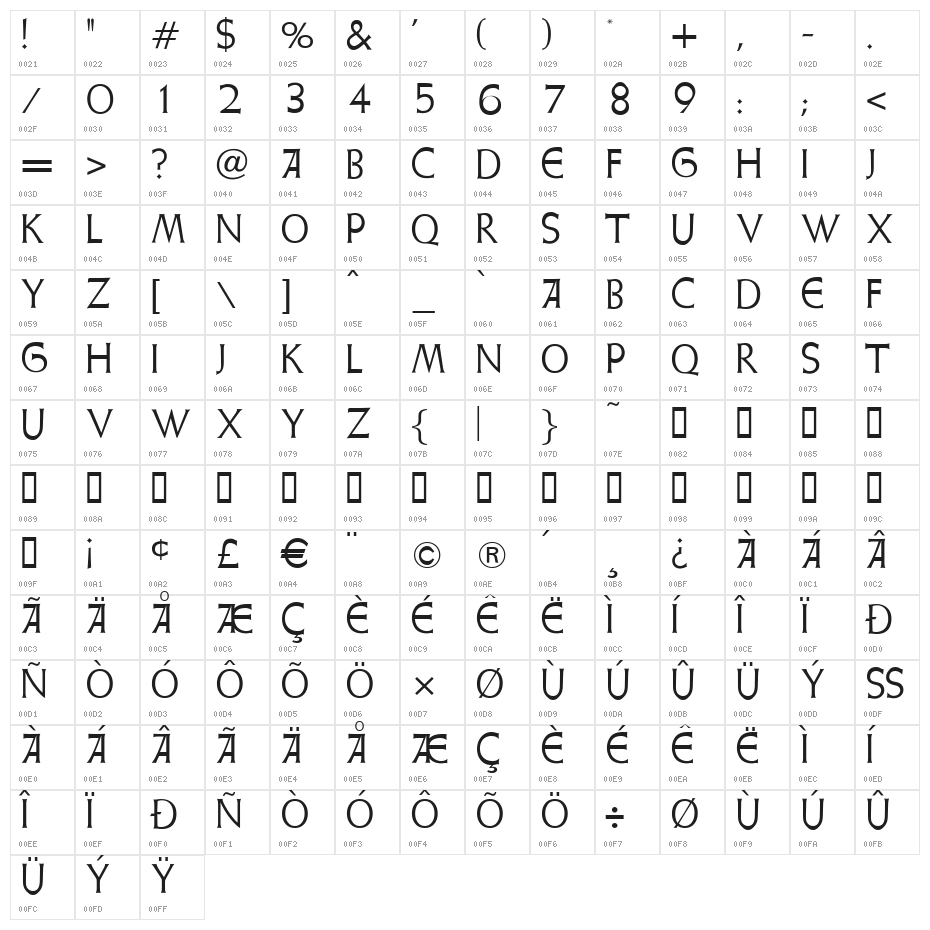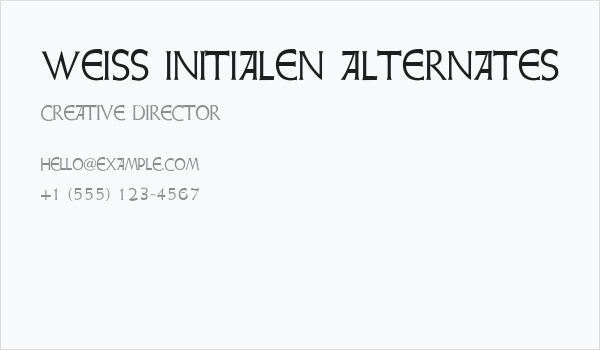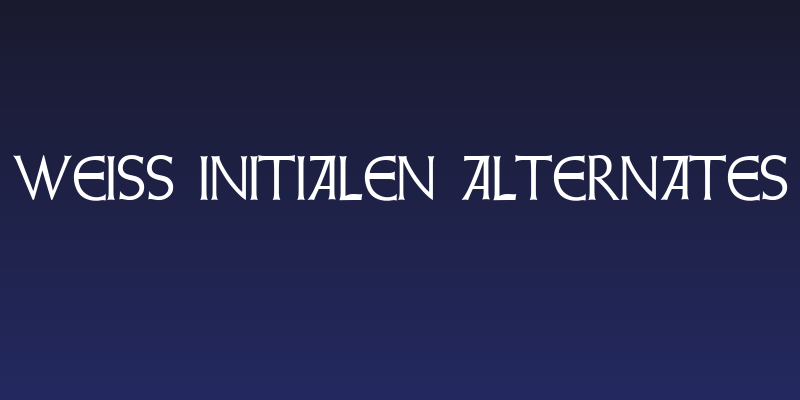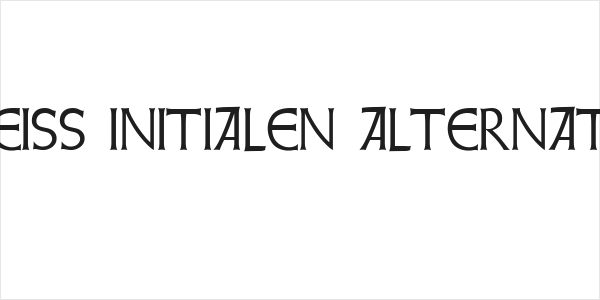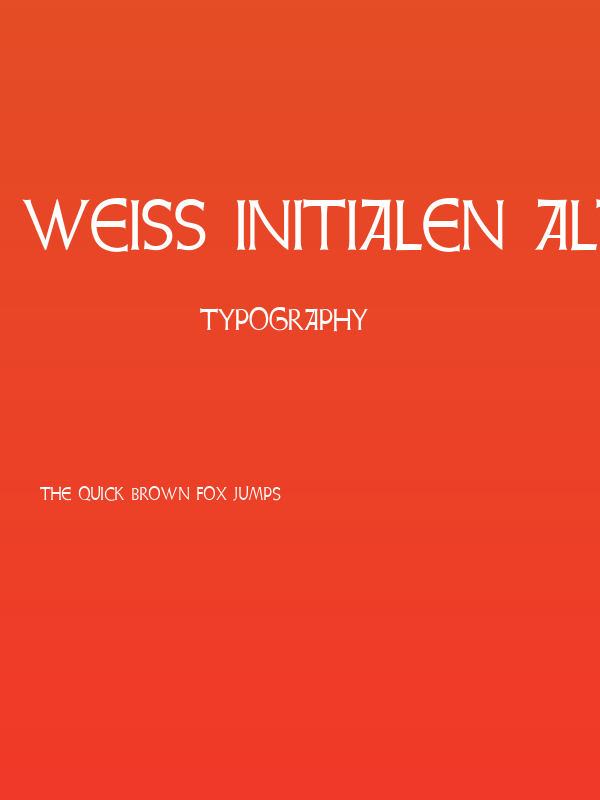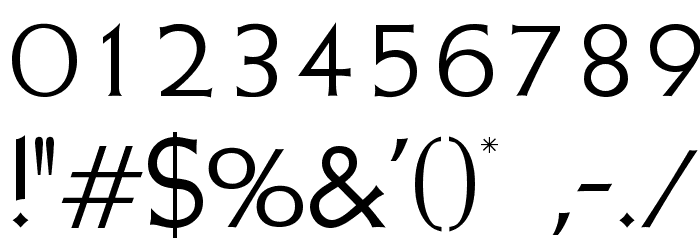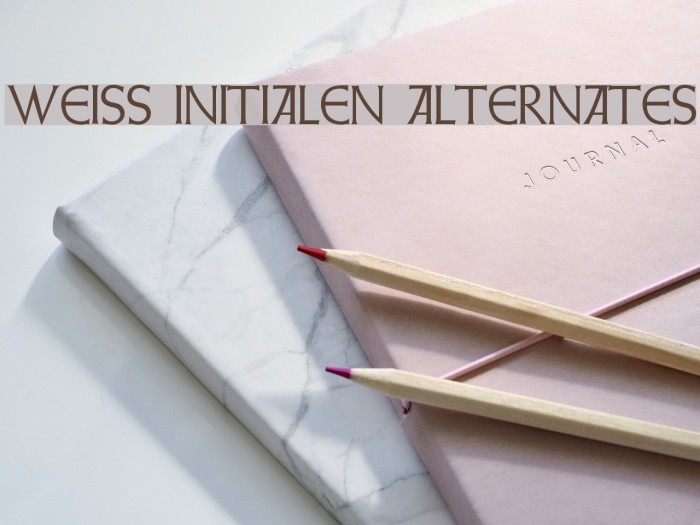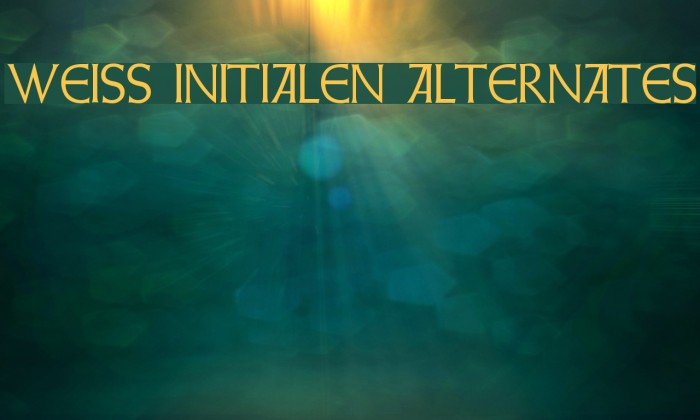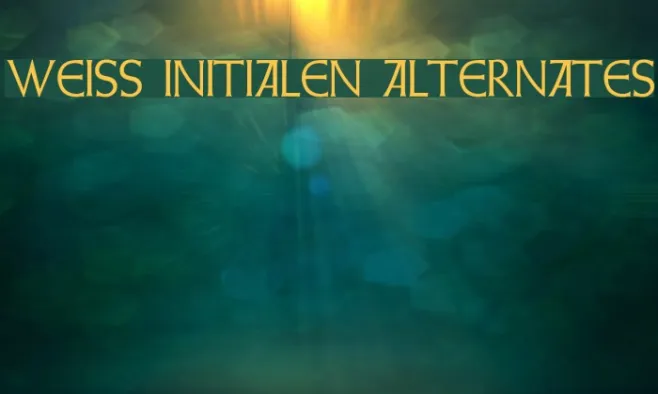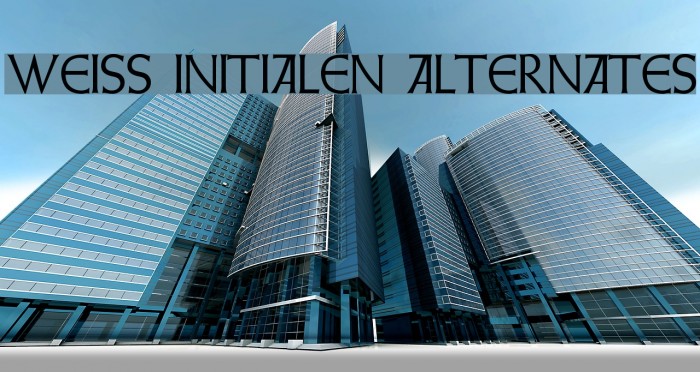
Weiss Initialen Alternates Font
Weiss Initialen Alternates Description
This font features a classic and elegant design with a touch of modernity. The characters have a distinct serif style, with sharp, angular lines and a slightly condensed form. The uppercase letters are particularly striking, with unique flourishes that add a decorative element. The numerals are clear and consistent, maintaining the overall aesthetic of the font. Special characters are well-integrated, ensuring versatility in various design applications. The font's balance between traditional serif elements and contemporary design makes it suitable for a wide range of uses.
| Proposed Projects | Ideal for book covers, formal invitations, branding, and editorial design. |